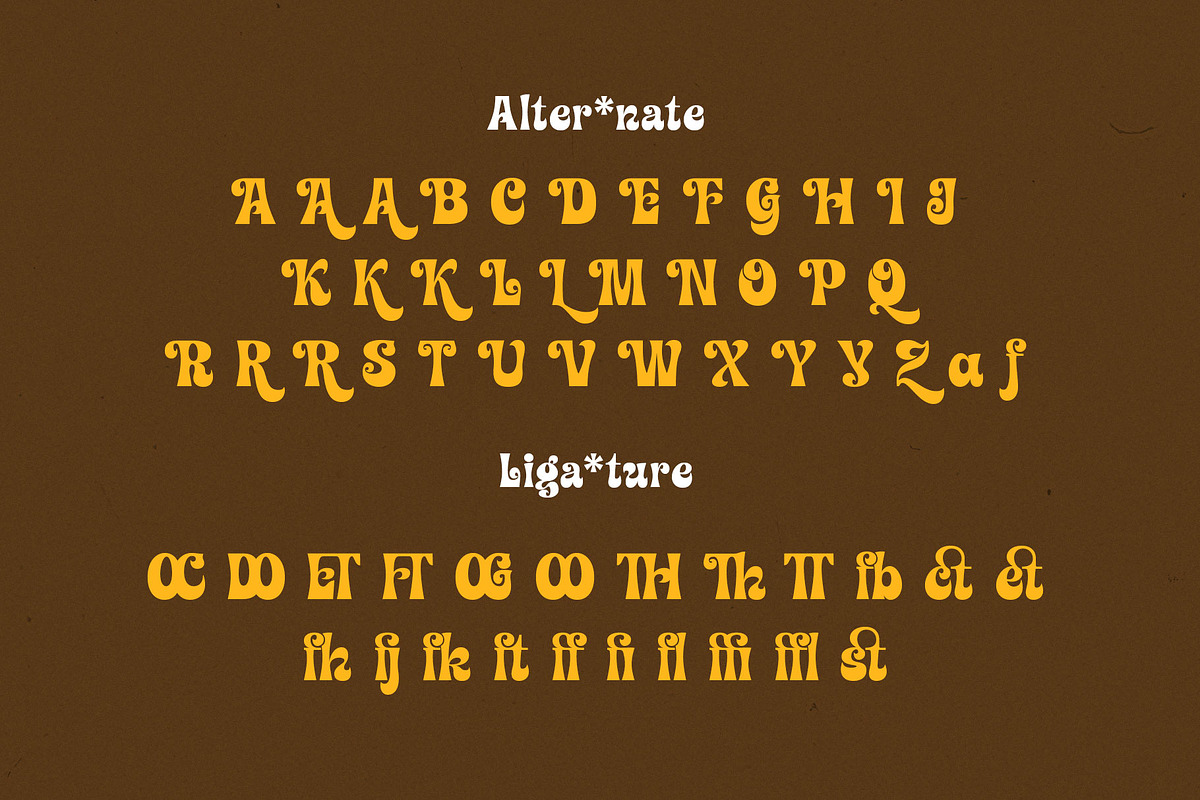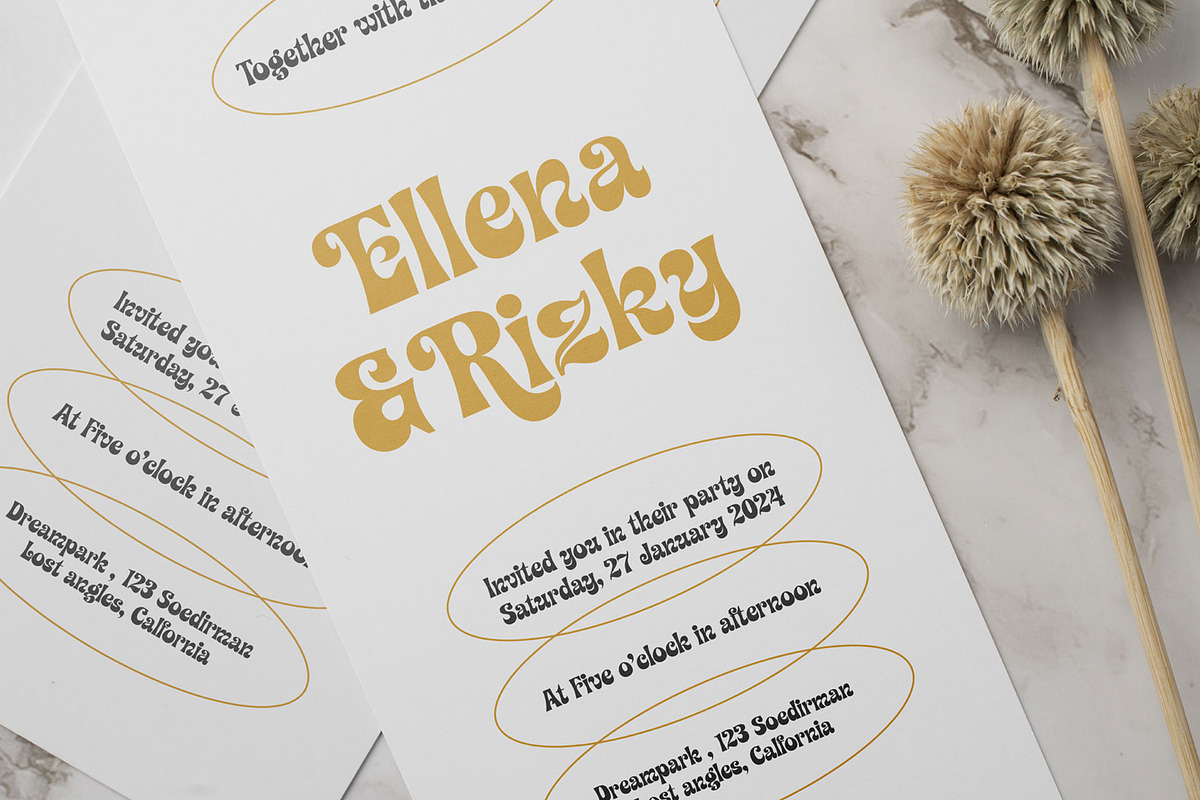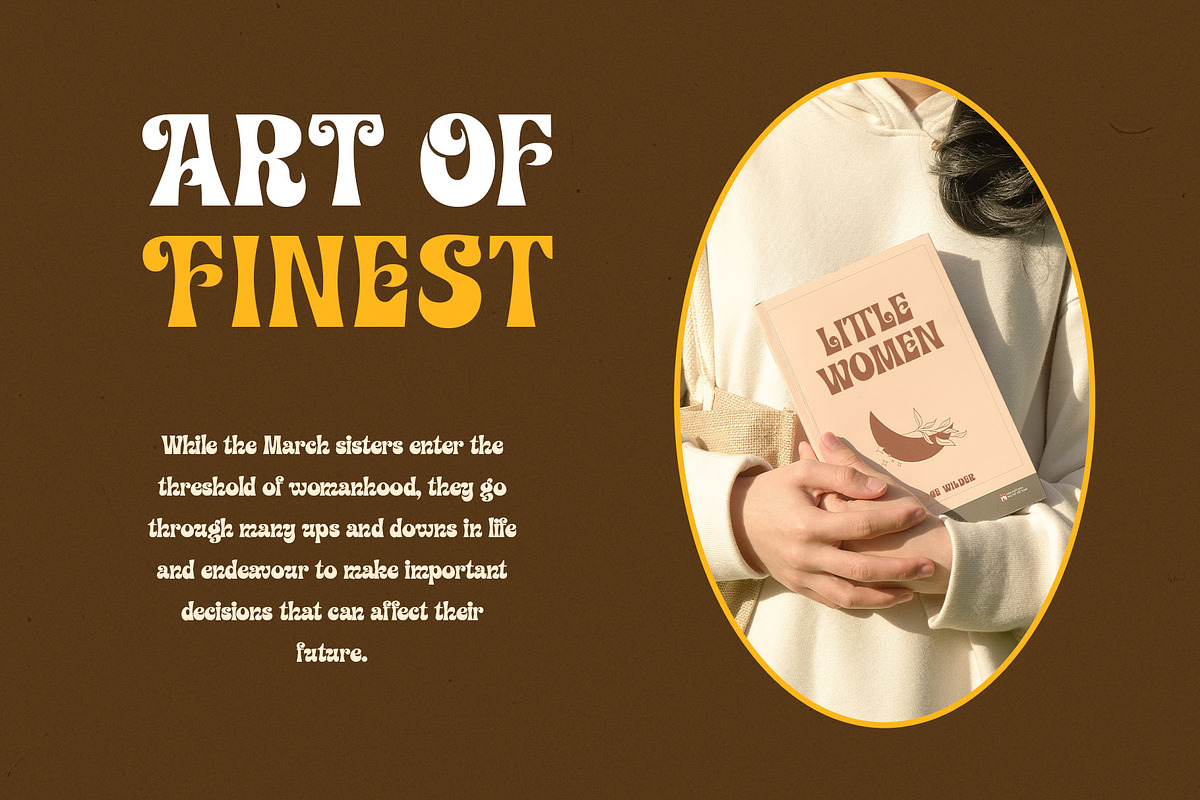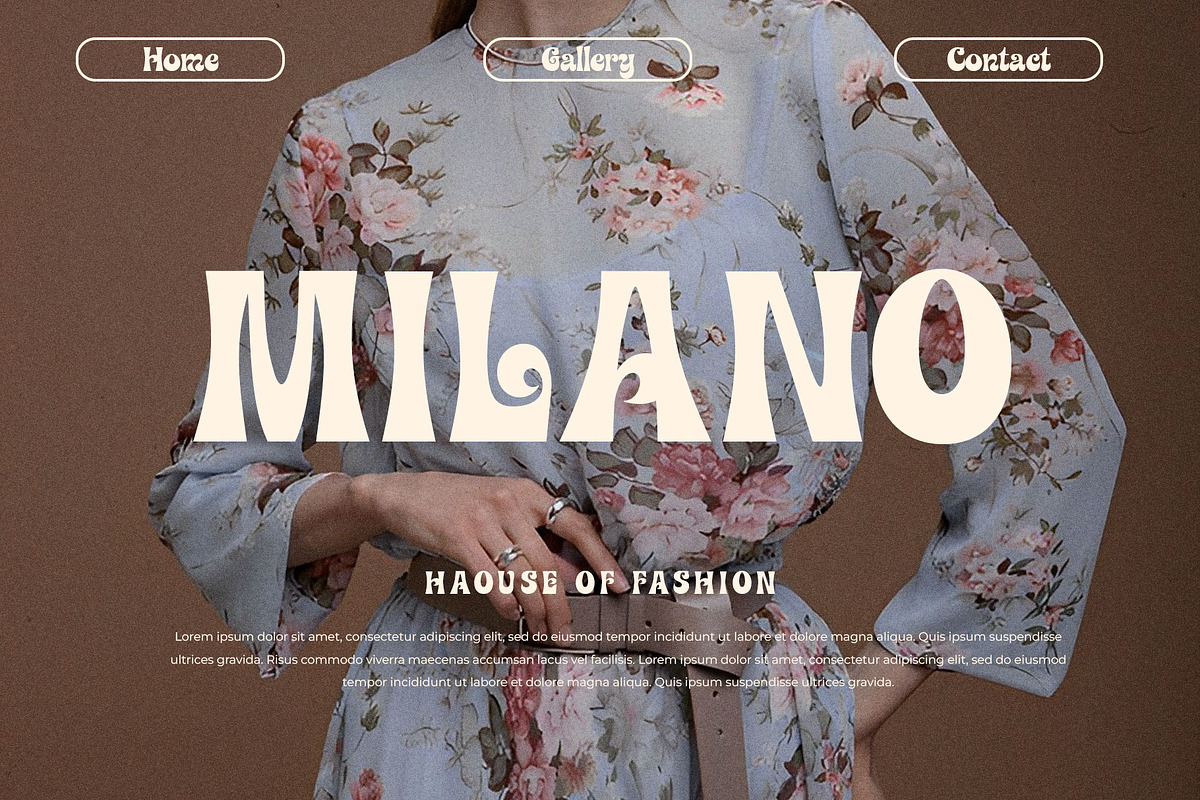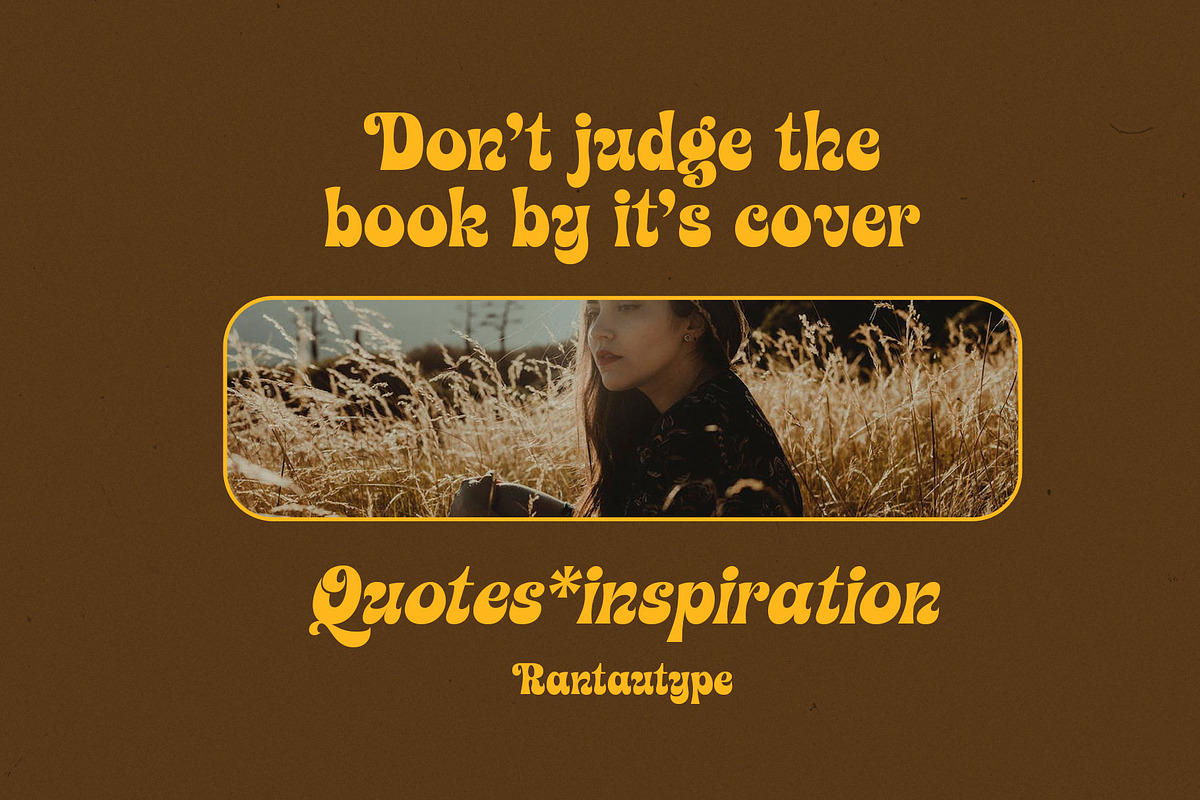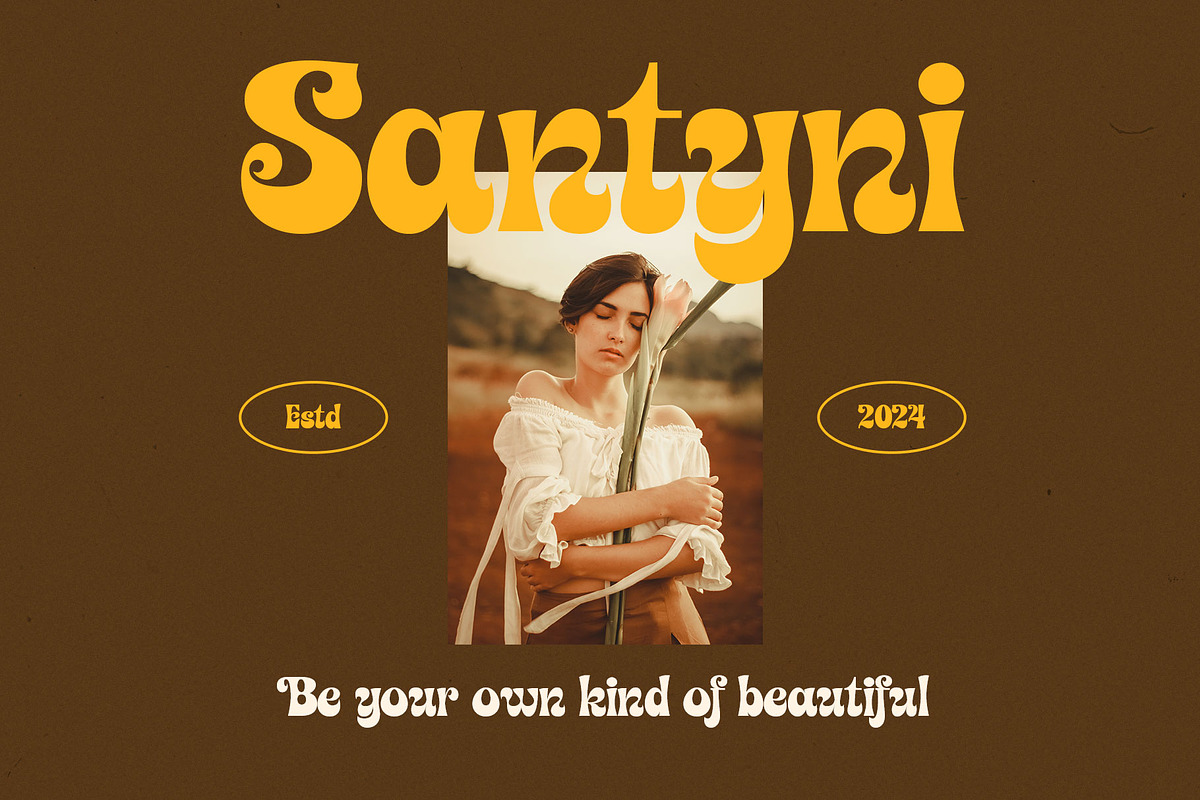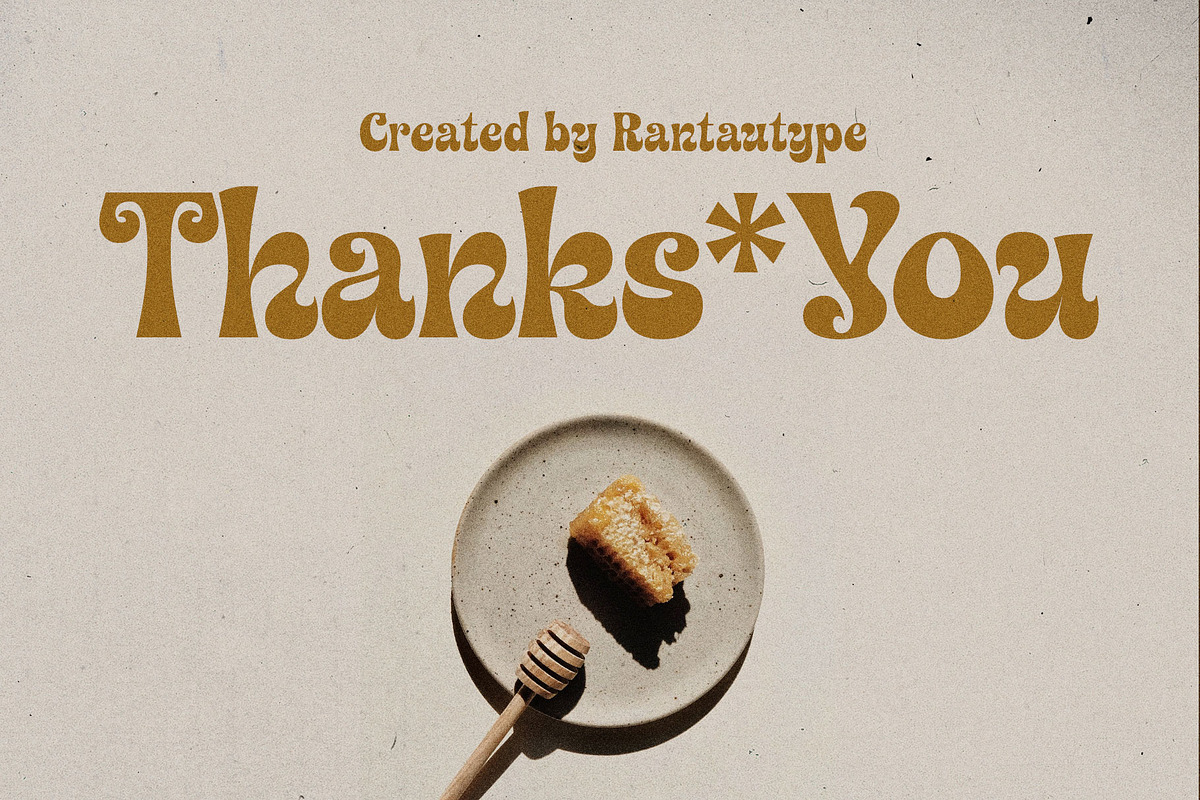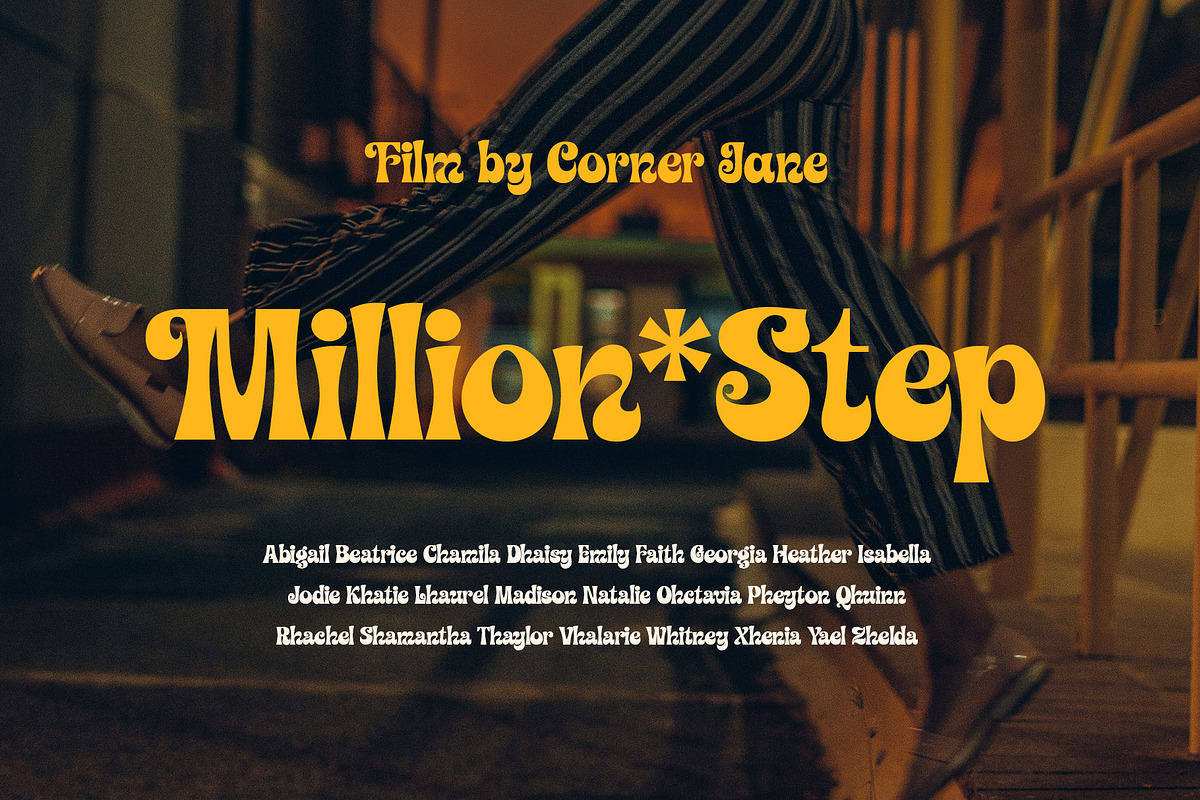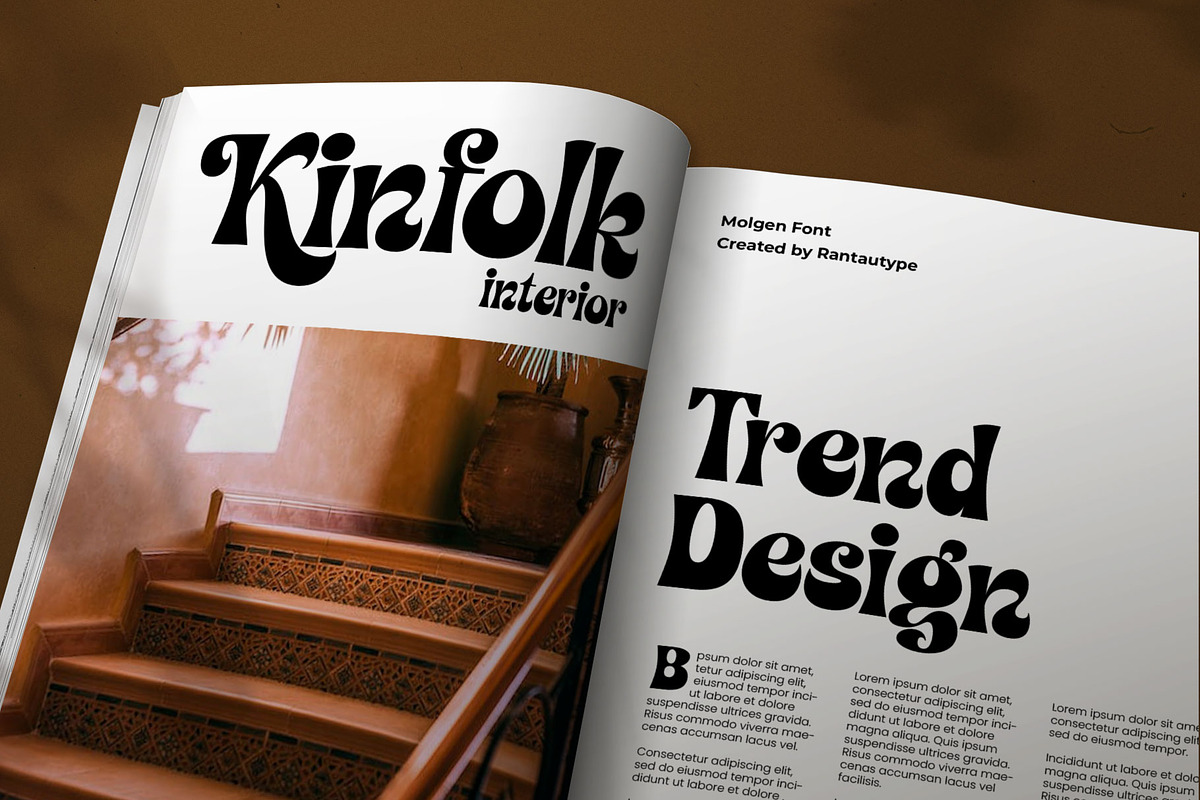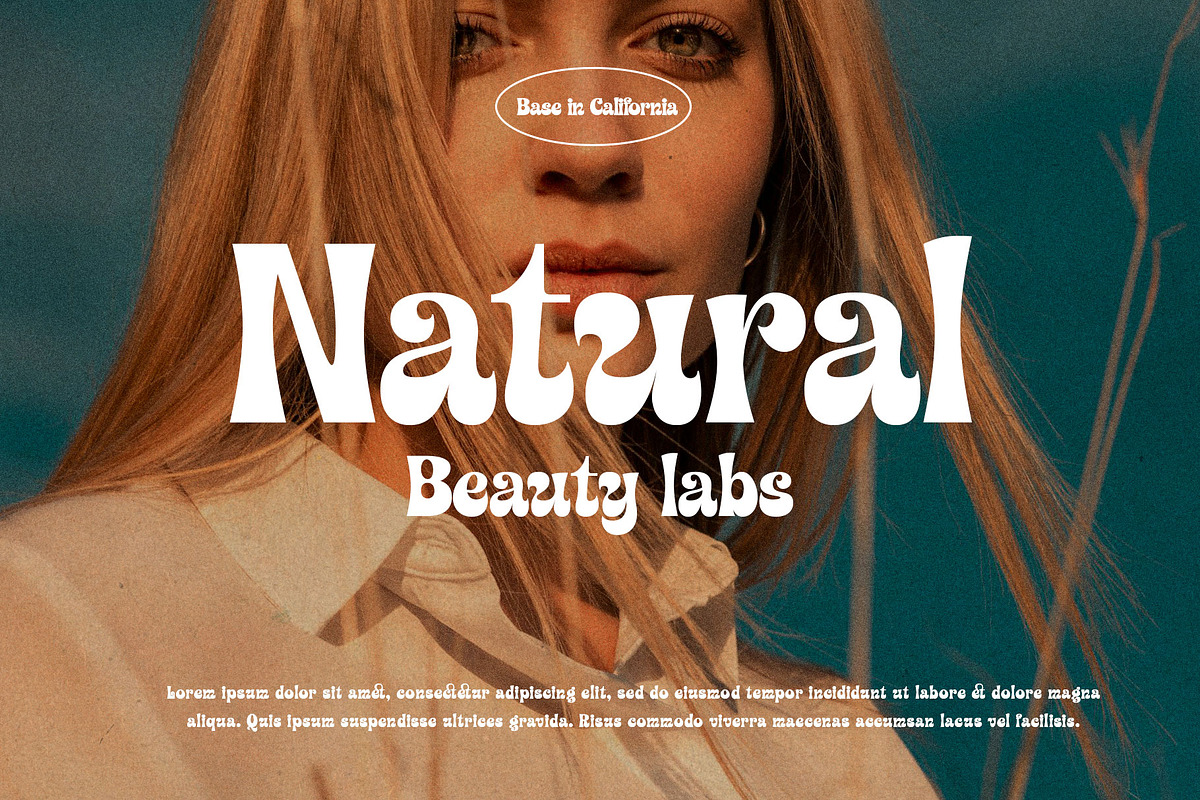
Molger Retro Display Font
Molger is a retro font that bold and curve make it look Unique, fun, modern and versatile serif Font. Come with more alternate and ligature you can mix and max to create a more stunning display.
Molger separate in reguler and italic, is a beautiful choice for any creative endeavor, creating fun, modern, chic, lifestyle design such as logos, title, cover, branding, display and magazine, and more. Now you have more choice when using Molger to make you design stand up!!
- Alternate and Ligature